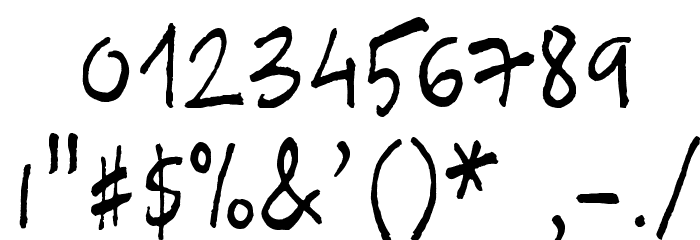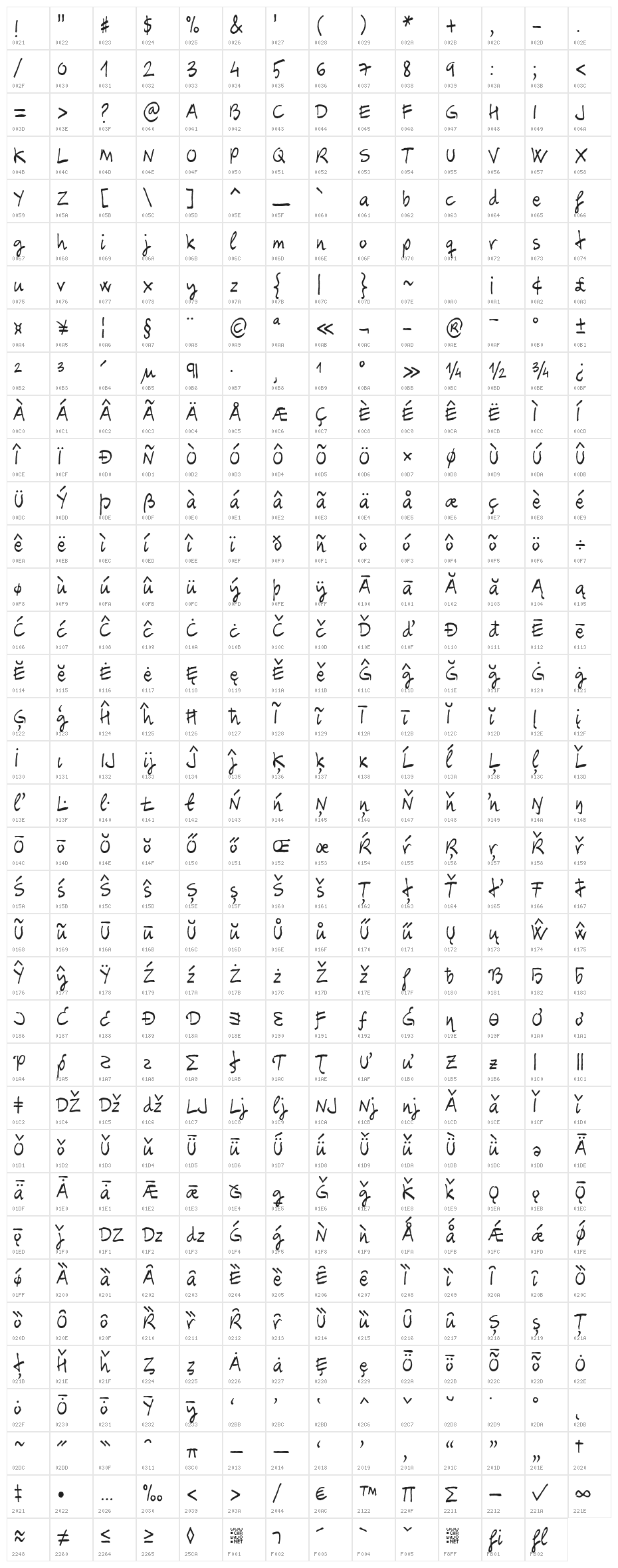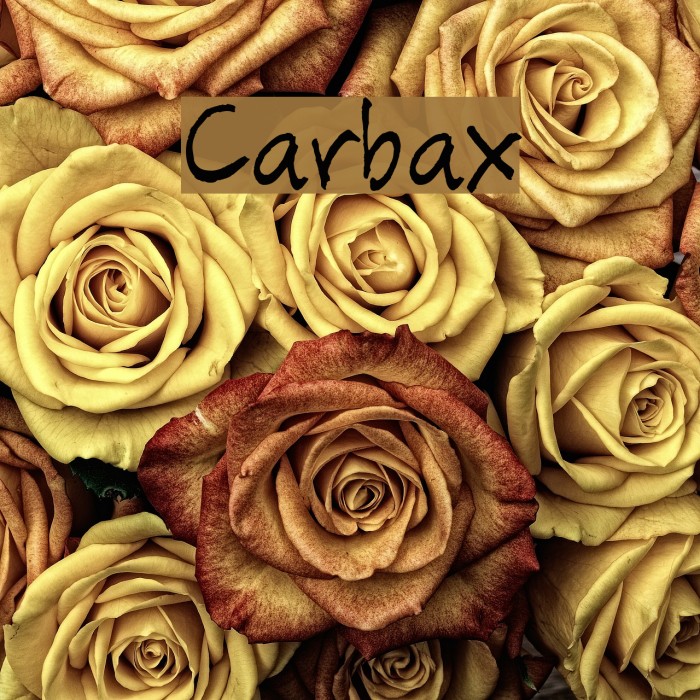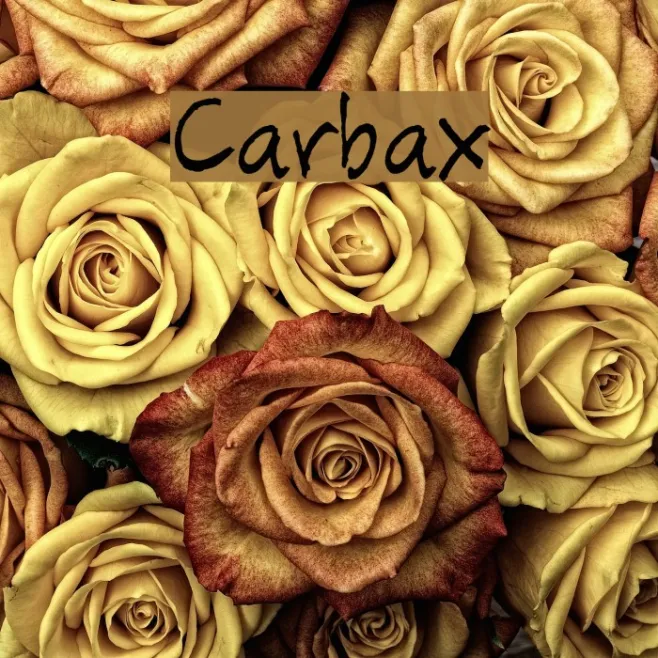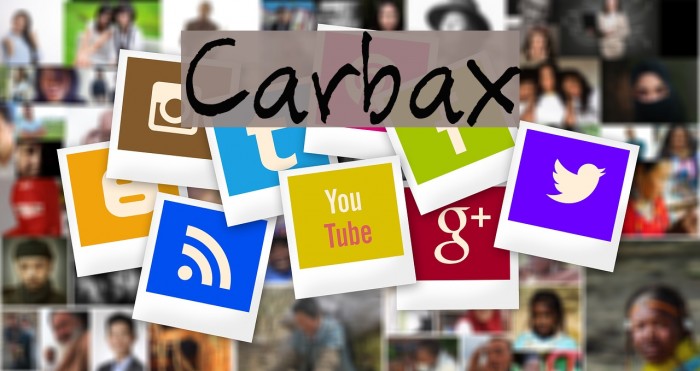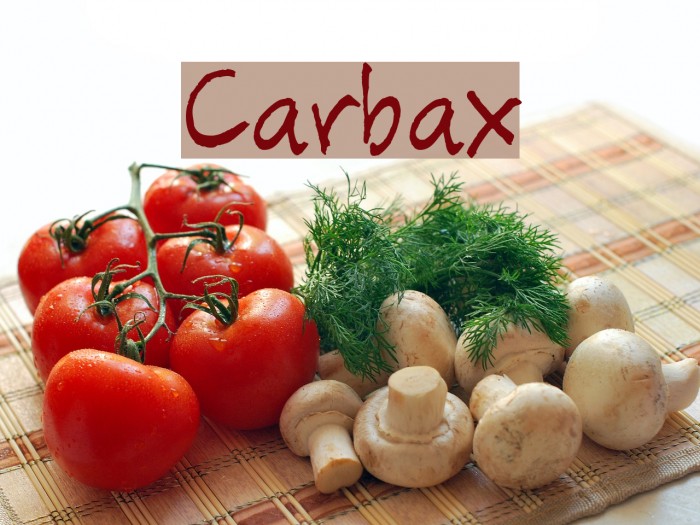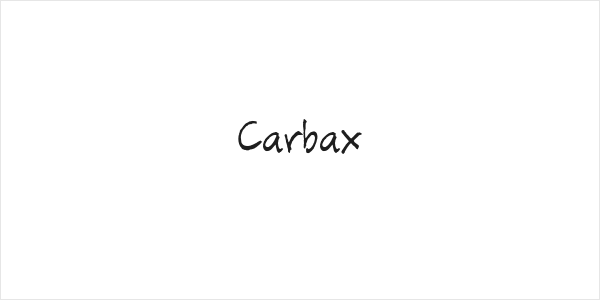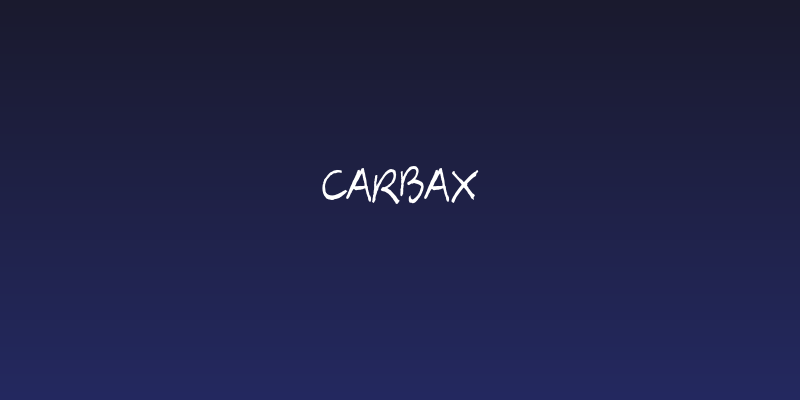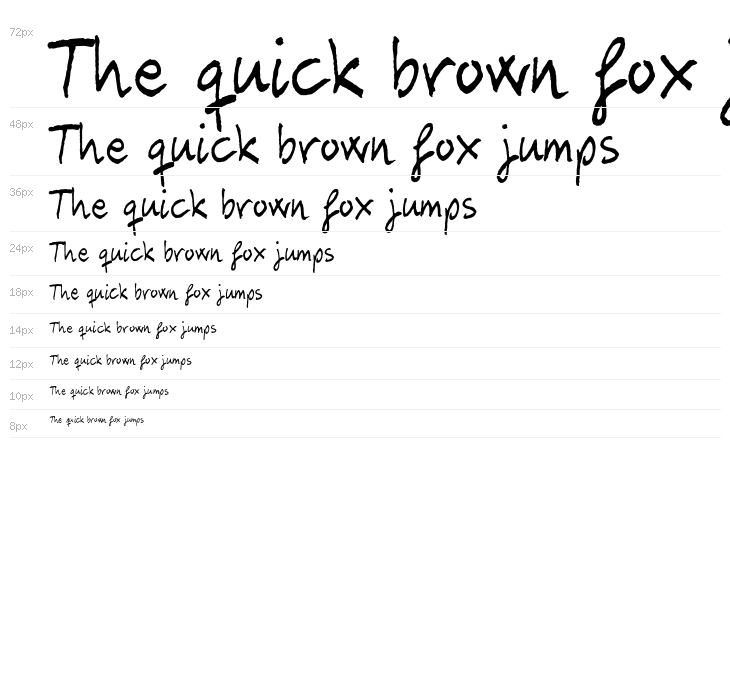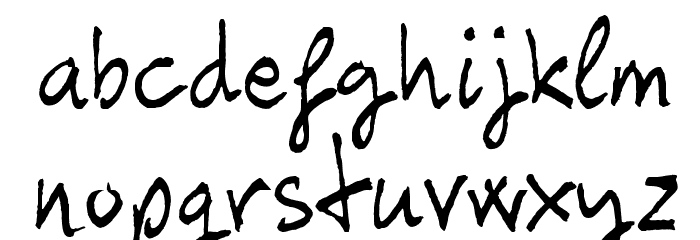
Carbax Font
Carbax Description
This font exudes a casual and handwritten style, characterized by its irregular strokes and playful appearance. The letters are slightly slanted, giving it a dynamic and informal feel. The uppercase and lowercase letters maintain a consistent style, with rounded edges and varying stroke thickness that mimic the natural flow of handwriting. The numbers and special characters follow the same aesthetic, ensuring a cohesive look across all glyphs. This font is perfect for projects that require a personal touch or a relaxed vibe, such as invitations, greeting cards, or creative branding.
| Proposed Projects | Ideal for invitations, greeting cards, creative branding, and personal projects. |